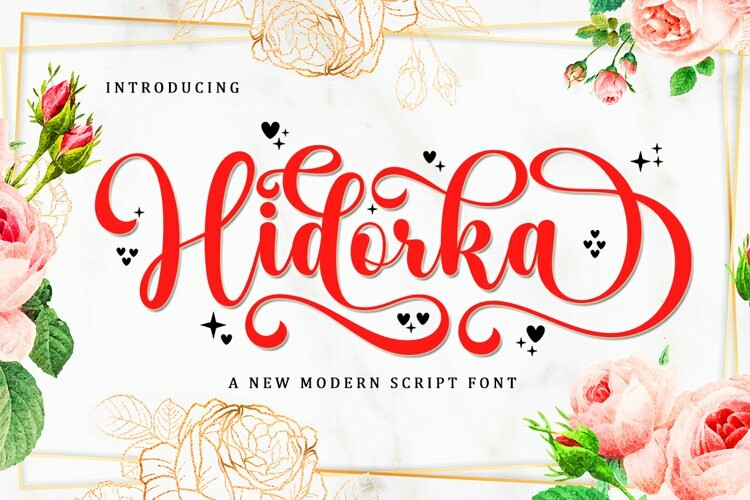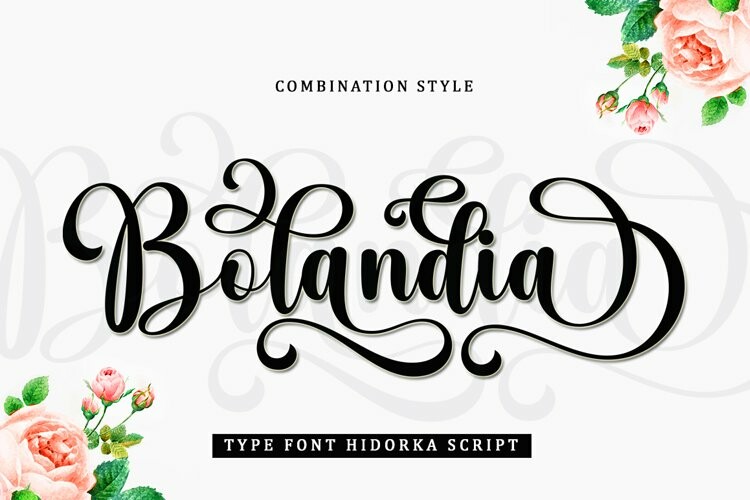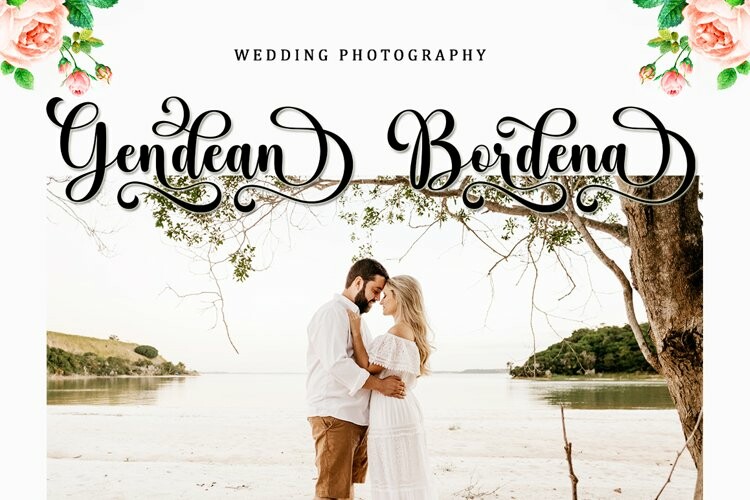
Hidorka Font
Hidorka FontHidorka is a very cute, elegant and unique handwritten font. Expertly designed to become a true favorite, this font has the potential to take your creative ideas to the highest level!
Hidorka is attractive because it is sleek, clean, feminine, sensual, glamorous, simple and highly readable, thanks to its many luxurious letter joints. I also offer a number of viable alternative styles for all letters. Classic style is very suitable to be applied in various formal forms such as invitations, labels, restaurant menus, logos, fashion, make up, stationery, novels, magazines, books, greeting cards/weddings, packaging, labels or all kinds of advertisements. for your purposes. . . . . .